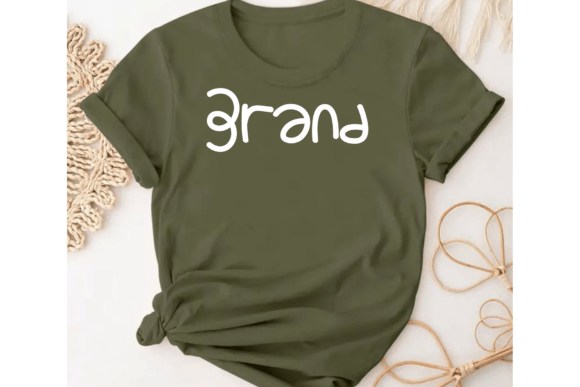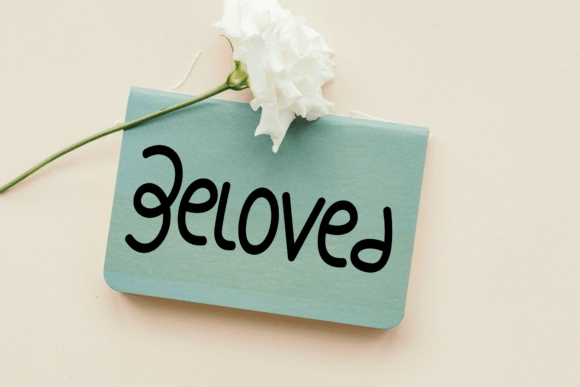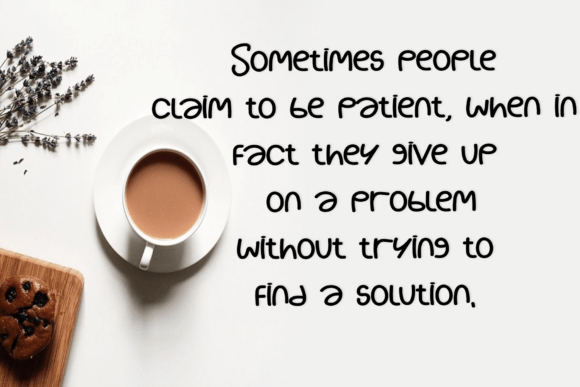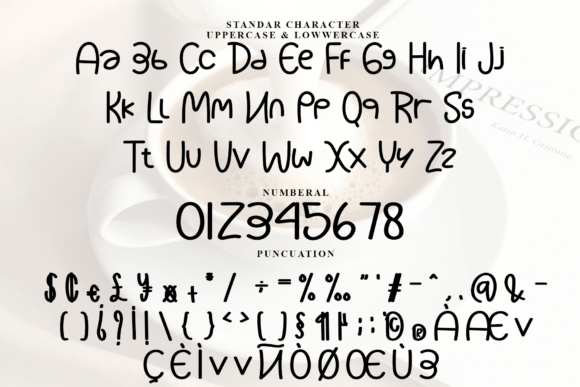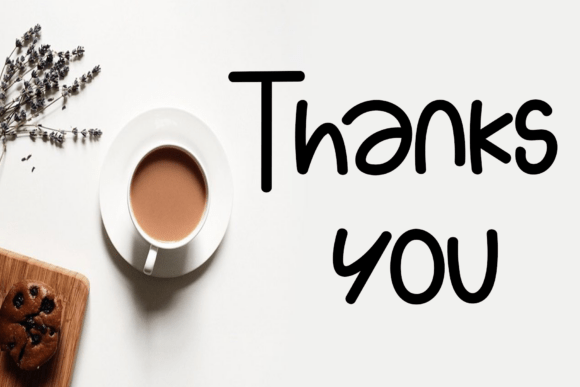
Coffee Milk Font: A Deliciously Friendly Display Font
Are you looking for a font that exudes warmth, friendliness, and approachability? Look no further than the Coffee Milk font! This delightful display font is designed to bring a smooth, hand-drawn personality to your designs, making it perfect for a variety of creative projects.
What Makes Coffee Milk Font So Special?
Coffee Milk font is a unique and charming typeface that features thick, vertically elongated letterforms with a consistent monolinear weight and perfectly rounded terminals. This distinctive design gives the font a warm, personal touch that is both highly legible and visually appealing.
One of the standout features of Coffee Milk font is its slightly irregular character widths and organic alignment. This subtle irregularity gives the font a hand-crafted feel that is reminiscent of handwritten lettering. The result is a font that feels friendly, approachable, and utterly charming.
Coffee Milk font is a versatile typeface that is suitable for a wide range of creative projects. Here are just a few ideas to get you started:
- Cafe branding: Create a warm and inviting atmosphere for your coffee shop or cafe with Coffee Milk font. Use it for menus, signage, and marketing materials to establish a consistent brand identity.
- Breakfast product packaging: Add a touch of warmth and personality to your breakfast product packaging with Coffee Milk font. It’s perfect for cereal boxes, bread labels, and more.
- Creative journaling: Add a personal touch to your journal or diary with Coffee Milk font. Use it for headings, titles, and inspirational quotes to make your journal feel more special.
- Cheerful social media headers: Stand out on social media with Coffee Milk font. Use it for headers, titles, and graphics to add a touch of personality to your online presence.
Why Designers and Crafters Love Coffee Milk Font
So, why do designers and crafters love Coffee Milk font? Here are just a few reasons:
- Unique and distinctive: Coffee Milk font is a one-of-a-kind typeface that will help your designs stand out from the crowd.
- Highly legible: Despite its creative and artistic feel, Coffee Milk font is highly legible and easy to read.
- Versatile: Coffee Milk font is suitable for a wide range of creative projects, from branding and packaging to journaling and social media graphics.
Tips for Using Coffee Milk Font
Here are a few tips for getting the most out of Coffee Milk font:
- Use it for headlines: Coffee Milk font is perfect for headlines, titles, and other display text.
- Pair it with a sans-serif font: For body text, pair Coffee Milk font with a clean sans-serif font to create a striking contrast.
- Experiment with colors: Coffee Milk font looks great in a variety of colors, from bright and bold to soft and pastel.
- Add some texture: Consider adding some texture or patterns to your design to give it an extra layer of interest and depth.
In conclusion, Coffee Milk font is a delightful and charming typeface that is perfect for designers and crafters looking to add a touch of warmth and personality to their designs. With its unique and distinctive design, high legibility, and versatility, Coffee Milk font is sure to become a favorite in your design toolkit. So why not give it a try and see what creative projects you can create with this deliciously friendly display font?